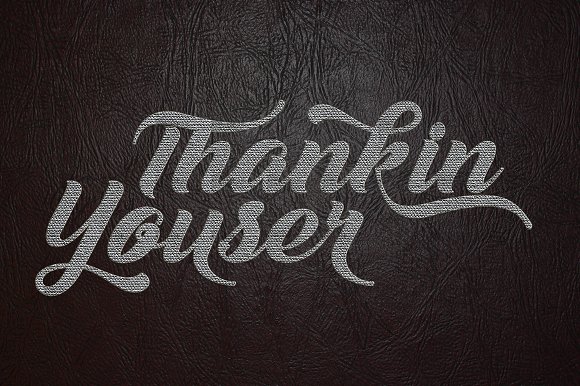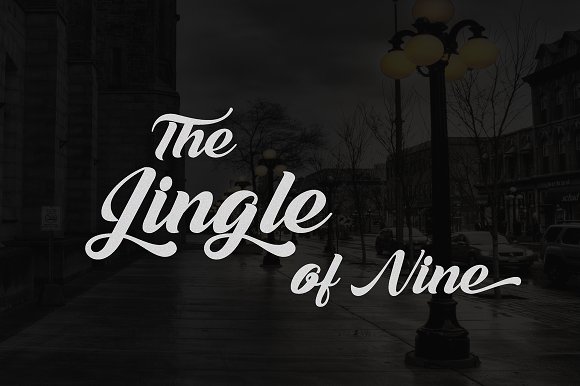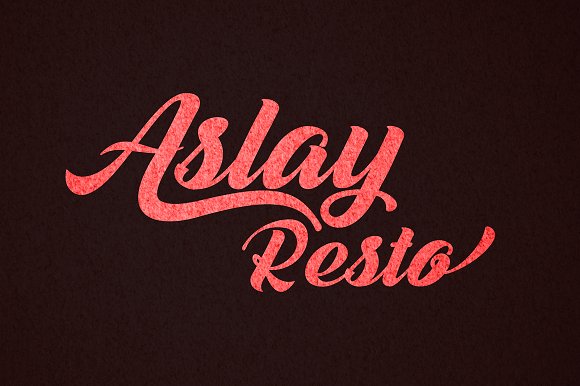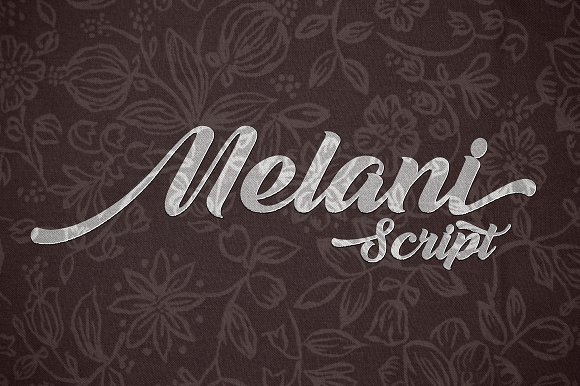
Melani Script Font
Introducing Melani Font. It is designed by Groens. Melani is a script font that has the characteristic caligraphy, it is very suitable to make certain label and event business and you could be using for a unique piece.